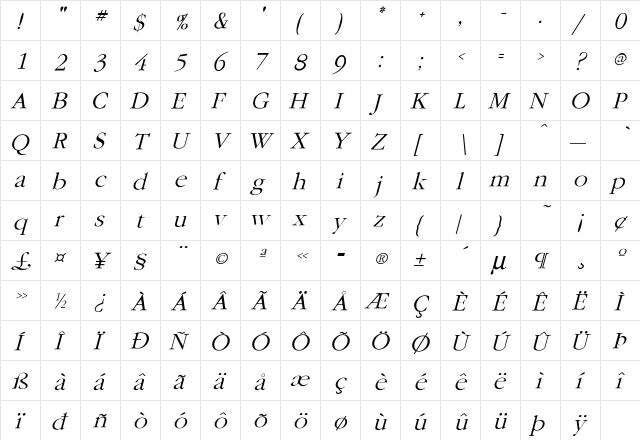
Marlowe Italic
Design Context for Marlowe Typeface
Marlowe offers clean, dependable letterforms without strong stylistic allegiance, making it a practical choice for designers who need flexibility. The slanted form adds forward momentum and visual energy.
Pro Tip: Use Marlowe for emphasis, pull quotes, and subheadings where its slanted energy can add rhythm to the layout.